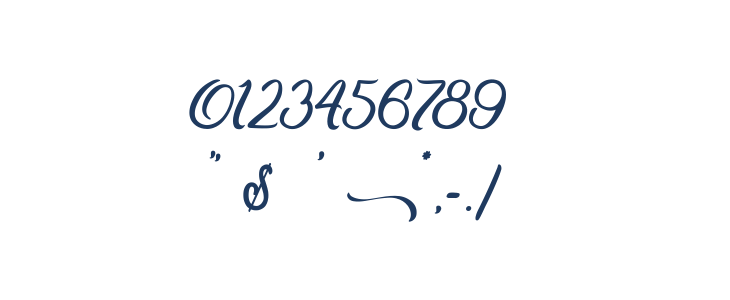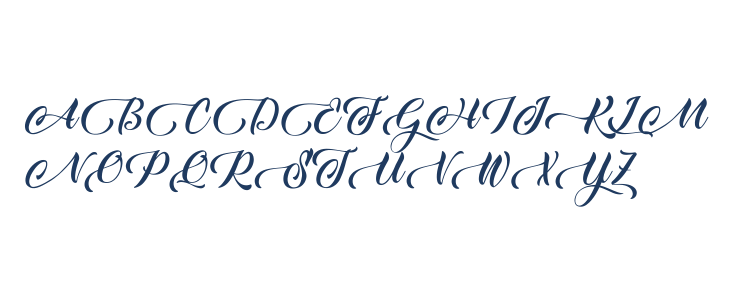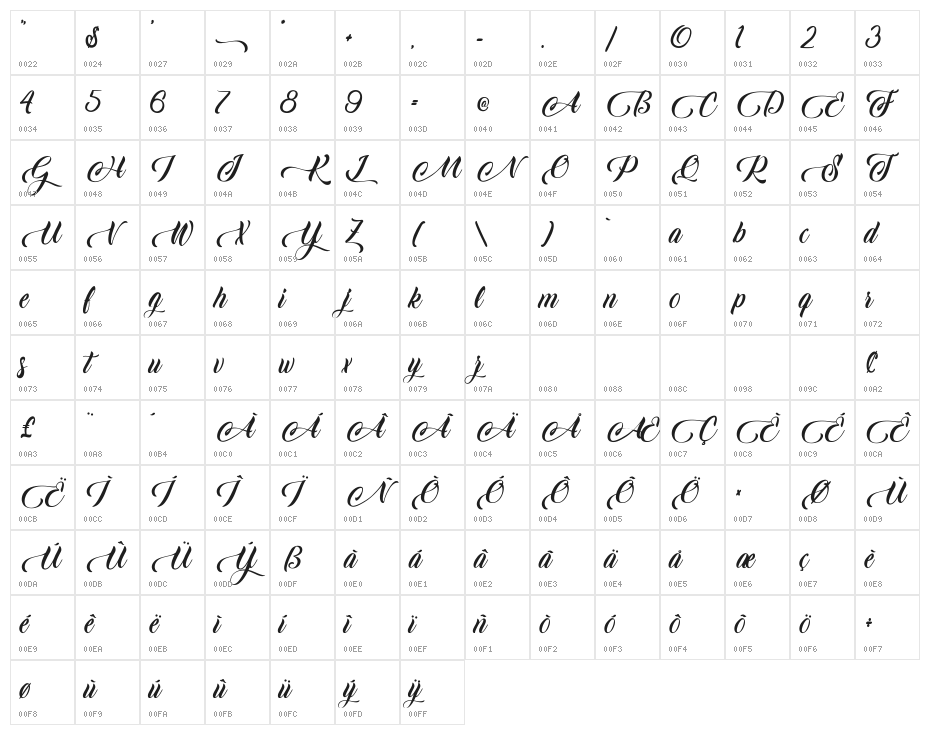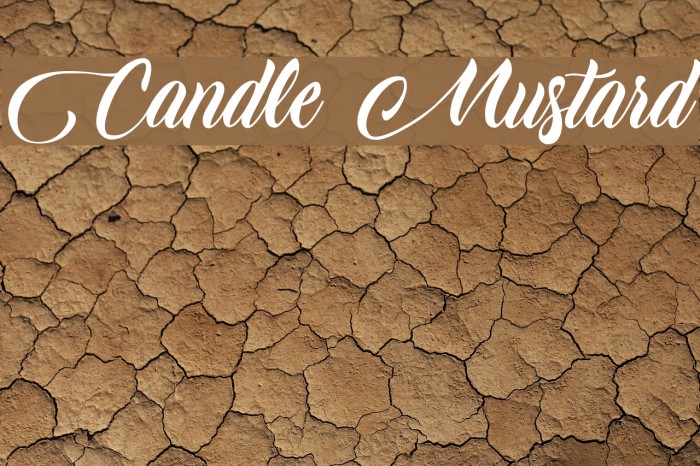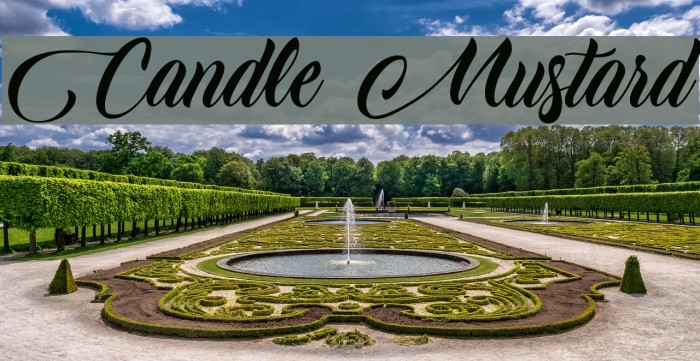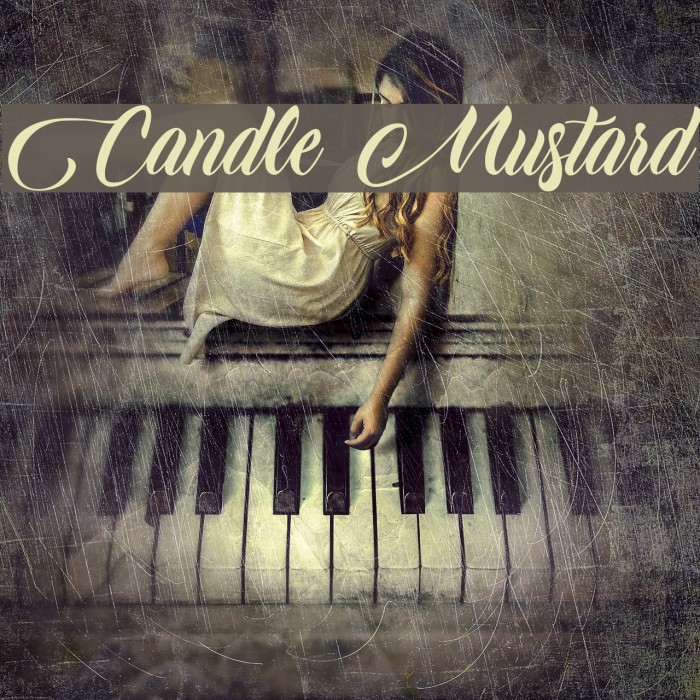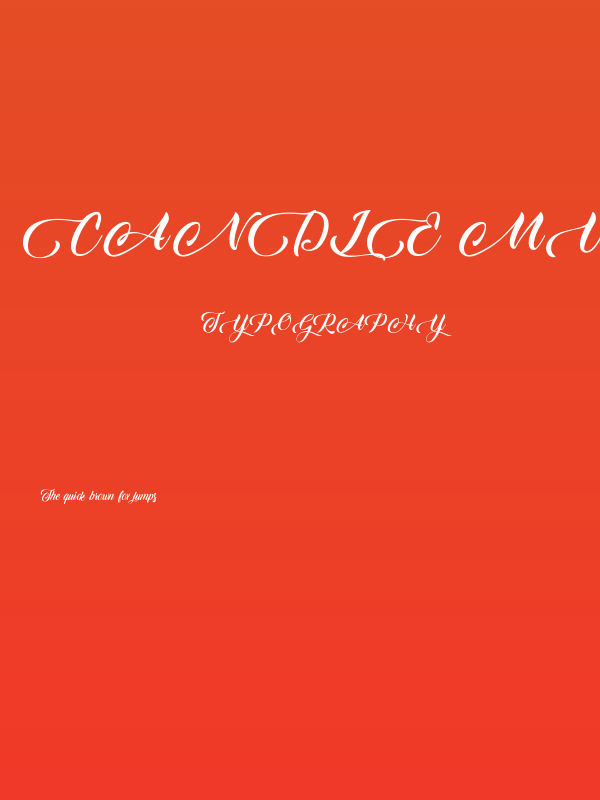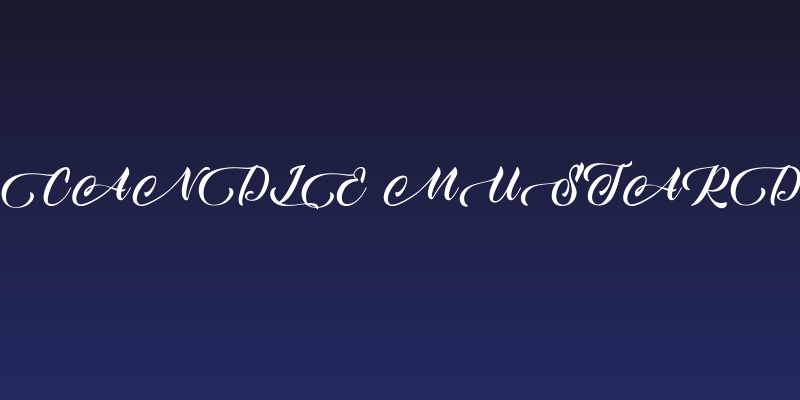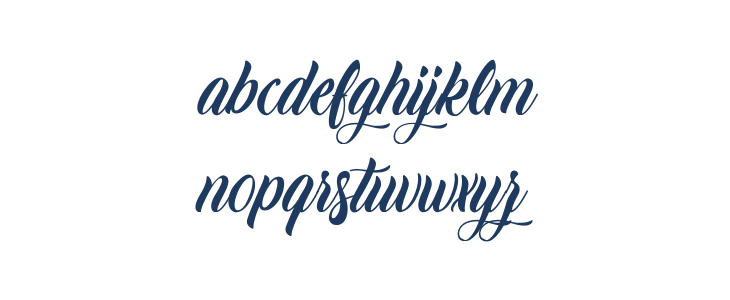
Candle Mustard Font
Candle Mustard Description
This elegant script font features flowing, interconnected characters with a classic calligraphic style. The uppercase letters are ornate and sweeping, while the lowercase letters maintain a smooth, cursive flow. The numerals are stylish and consistent with the overall design, adding a touch of sophistication. Special characters are well-integrated, enhancing the font's versatility. The font exudes a sense of grace and fluidity, making it ideal for projects that require a personal, handwritten touch.